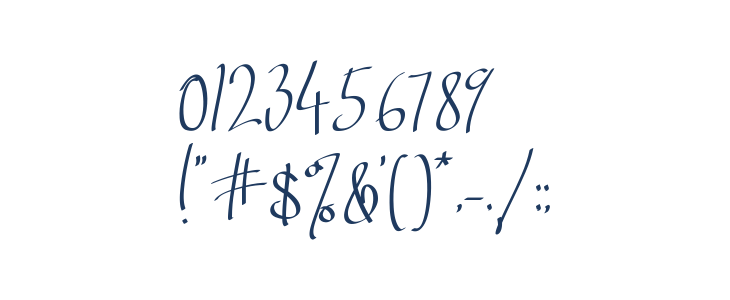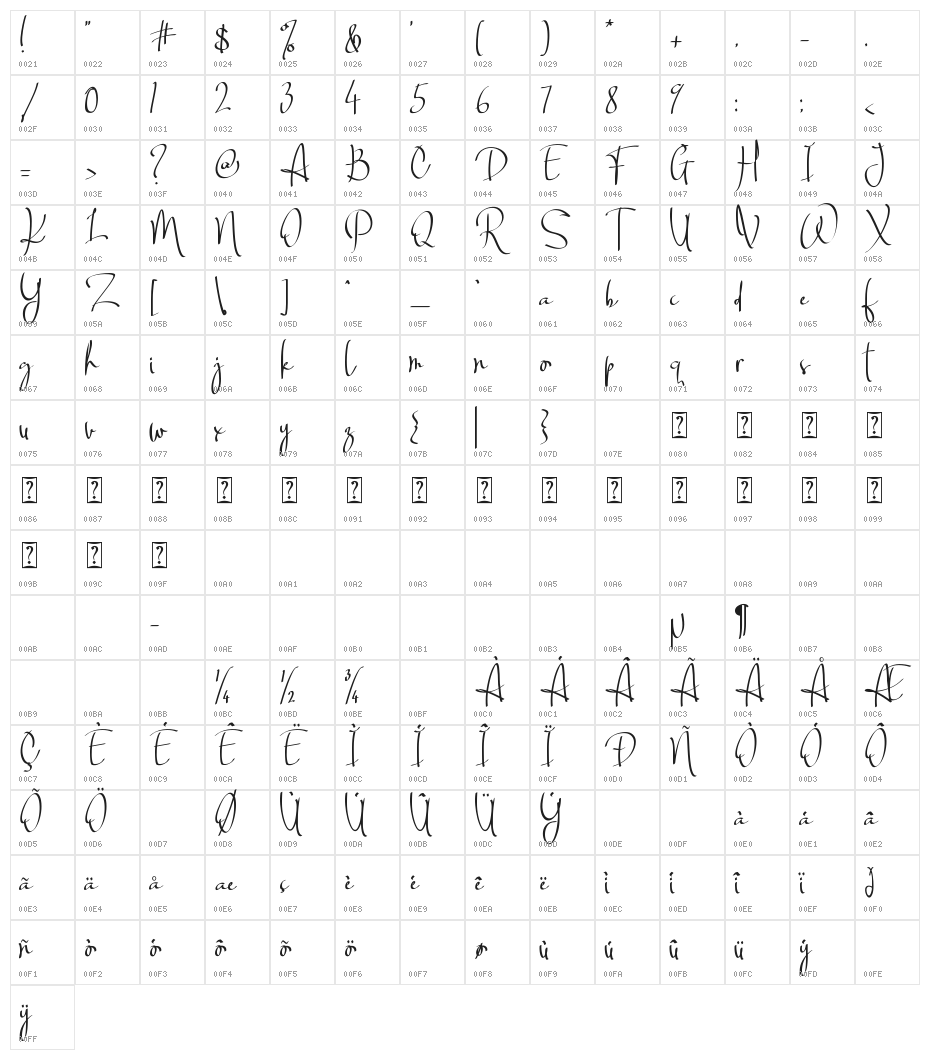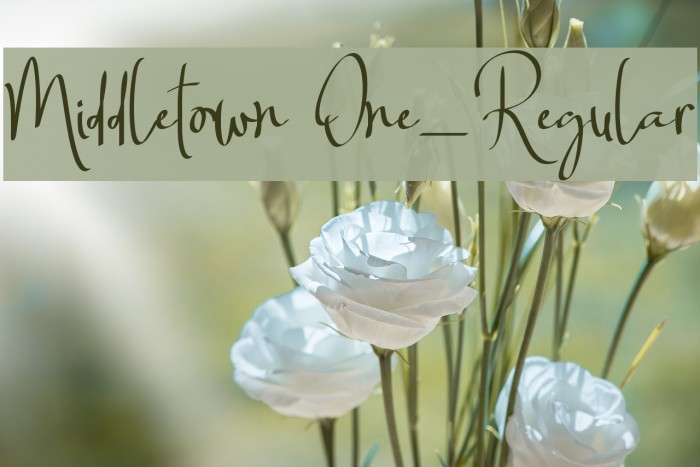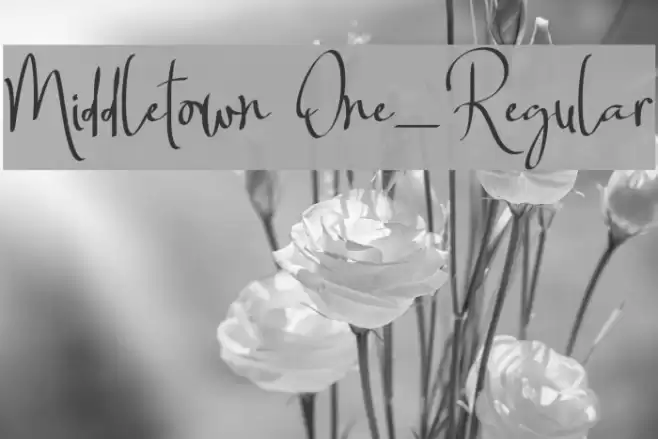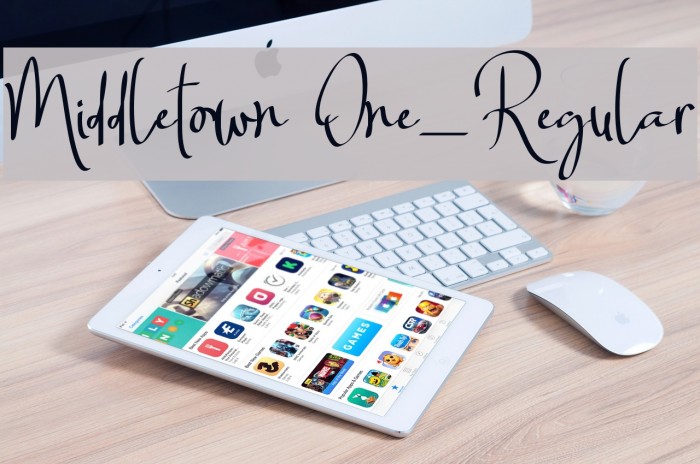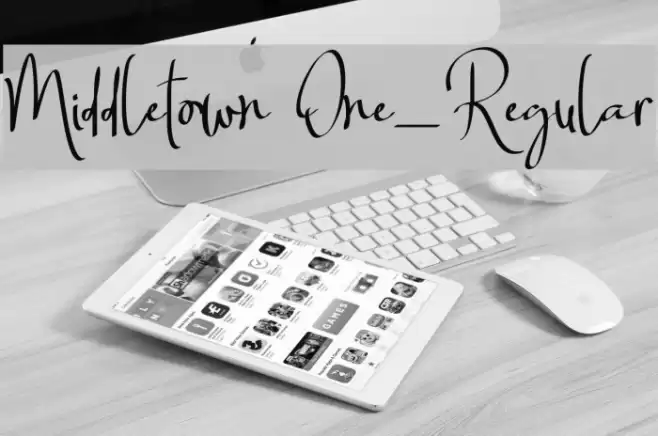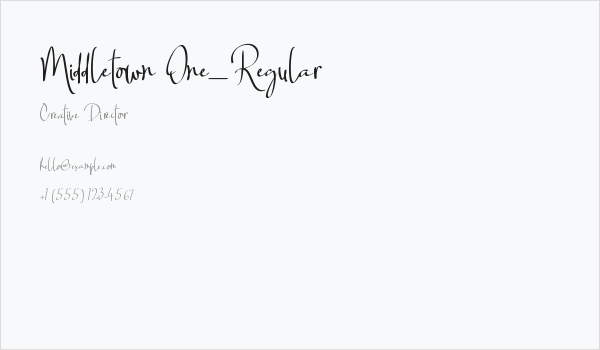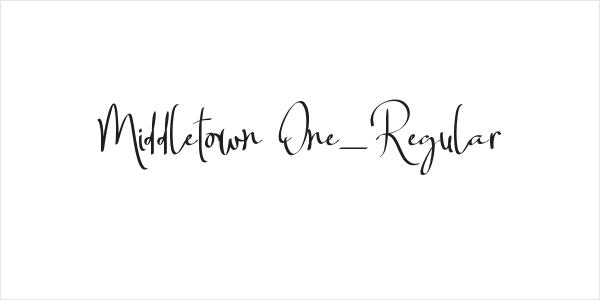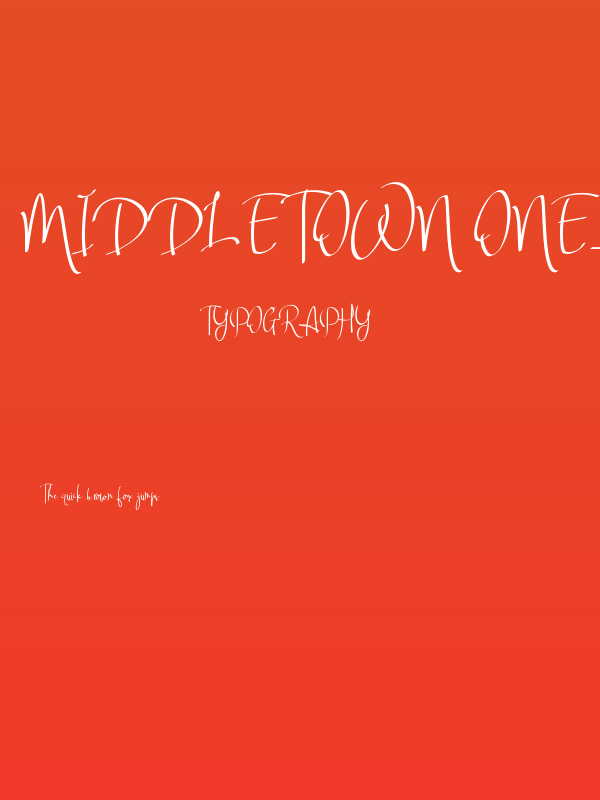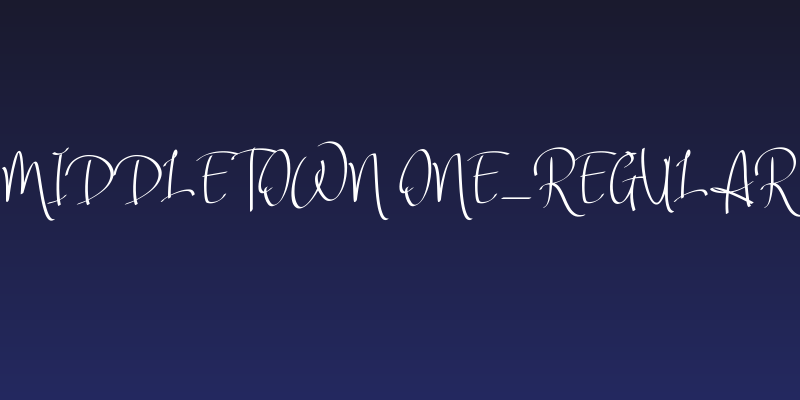
Middletown One_Regular Font
Middletown One_Regular Description
This font exhibits a lively and expressive handwritten style, characterized by its fluid and dynamic strokes. The uppercase letters are tall and elegant, with a slight slant that adds a sense of movement. The lowercase letters maintain a consistent flow, featuring loops and curves that enhance its handwritten appeal. Numbers are crafted with a similar flair, ensuring they blend seamlessly with the alphabet. Special characters are thoughtfully designed to match the overall aesthetic, making this font versatile for various creative applications.
| Proposed Projects | Ideal for wedding invitations, greeting cards, personal branding, and artistic projects that require a personal touch. |